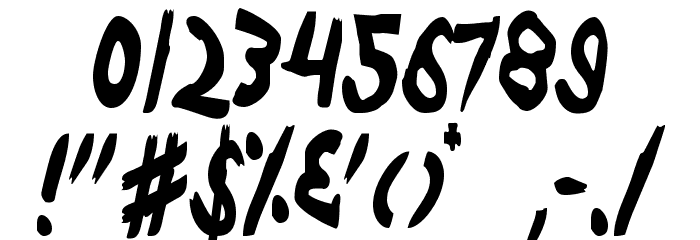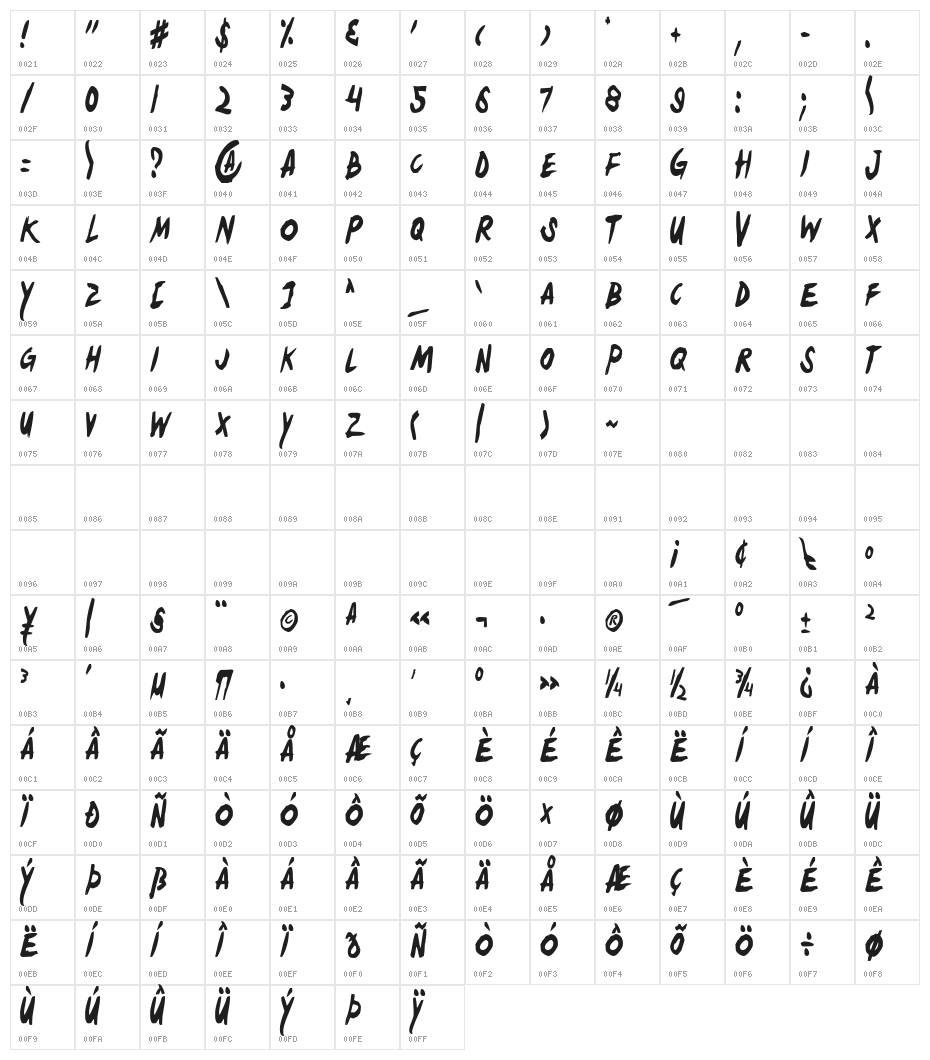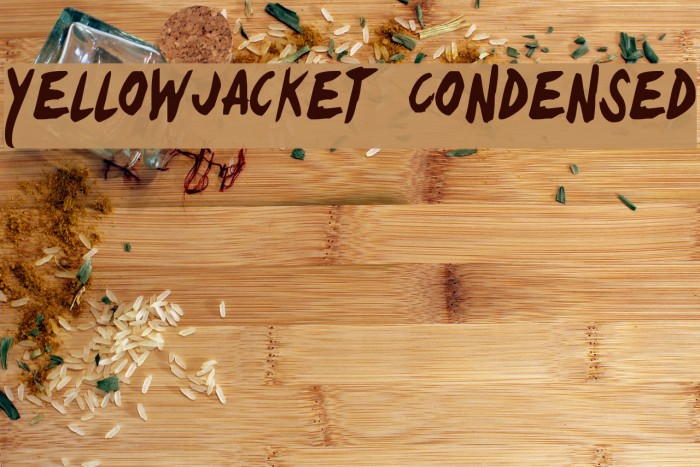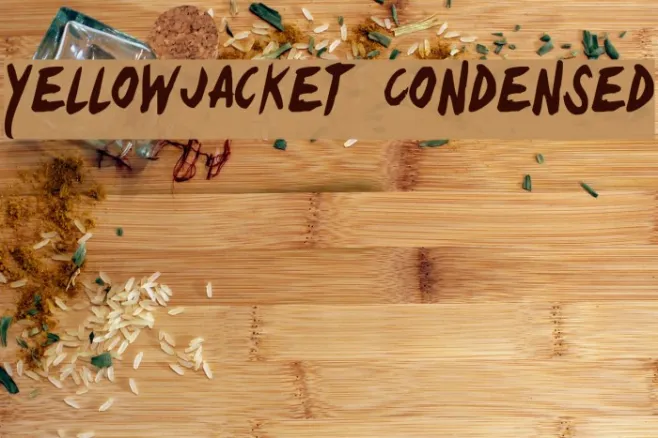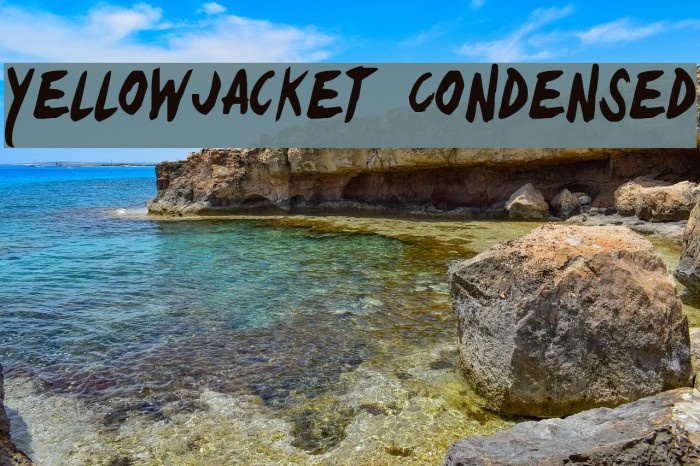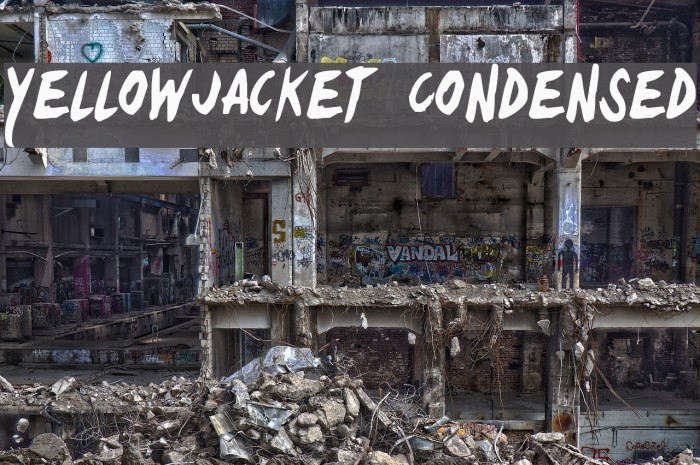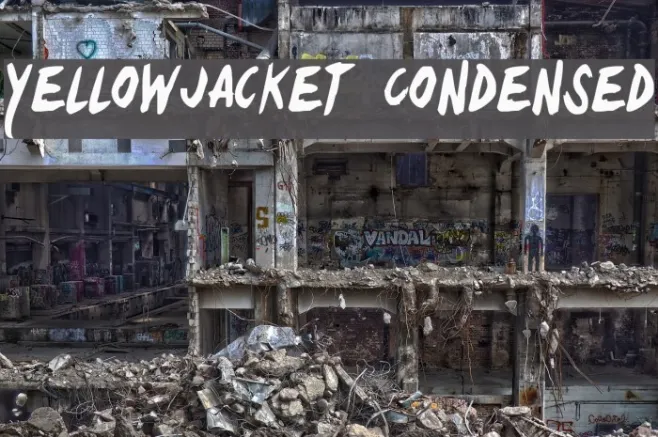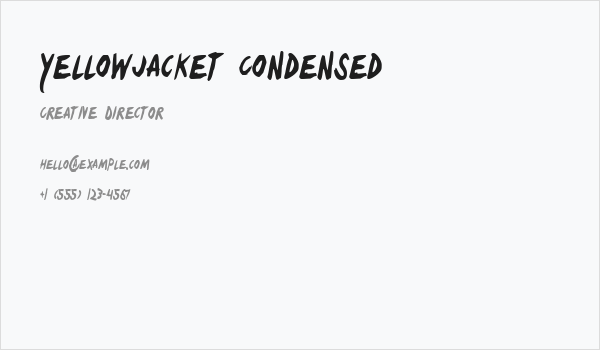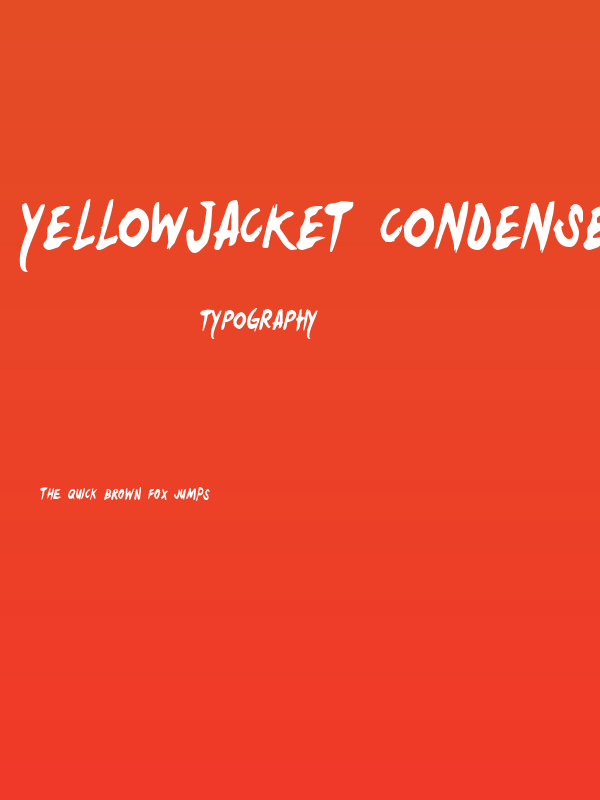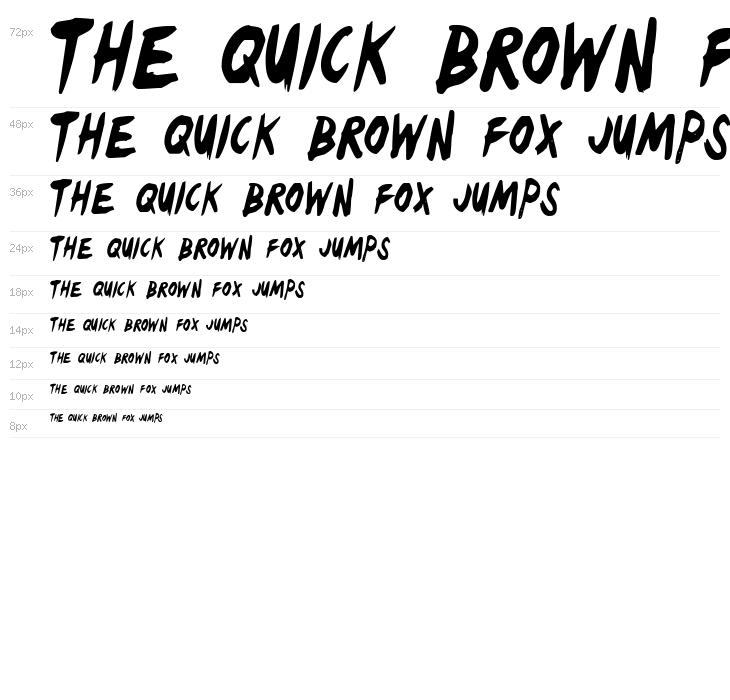
Yellowjacket Condensed Font
Yellowjacket Condensed Description
This font features a bold, energetic style with a hand-drawn appearance. The characters are condensed, giving them a compact and dynamic look. The strokes are thick and uneven, adding a sense of movement and spontaneity. The uppercase and lowercase letters maintain a consistent style, with a slightly slanted orientation that enhances the font's lively character. Numbers and special characters follow the same aesthetic, ensuring uniformity across all glyphs. This font is ideal for projects that require a bold and attention-grabbing typeface, such as posters, headlines, and branding materials. Its unique style makes it suitable for creative and artistic applications.
| Proposed Projects | Ideal for posters, headlines, branding, and creative projects requiring a bold statement. |